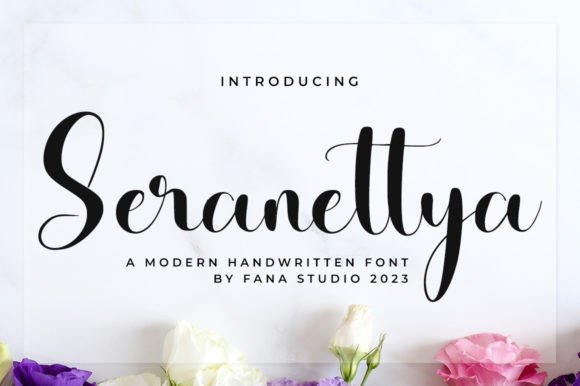
Unleash the Enchanting Seranettya: A Font Symphony for Your Creative Endeavors
Prepare to be captivated by Seranettya Script, an exquisitely crafted font that will leave you spellbound with its elegance, class, and modern allure. This remarkable script font is more than just a font; it's an artistic masterpiece that transforms your words into stunning visual art. With Seranettya Script, your projects will radiate with an aura of sophistication and grace that will leave an unforgettable impression.
Imagine your Ebook Website adorned with the flowing curves and delicate strokes of Seranettya Script. Its enchanting characters dance across the screen, inviting readers into a world of elegance and intrigue. Seranettya Script's timeless beauty will elevate your website to new heights, captivating your audience with its charm and artistry.
Seranettya Script is a font that speaks to the heart, evoking emotions and creating a lasting connection with your readers. Its intricate details and graceful lines add a touch of magic to every project, transforming ordinary words into extraordinary works of art. Whether you're crafting logos, invitations, stationery, or social media posts, Seranettya Script will elevate your designs to new levels of sophistication.
With Seranettya Script, you'll embark on a creative journey where your imagination knows no bounds. Its versatility extends beyond the digital realm, allowing you to incorporate its charm into your physical creations. Product packaging, labels, and watermarks come alive with Seranettya Script's timeless appeal. Let your creativity soar as you explore the endless possibilities that await.
Seranettya Script is the perfect font for those who seek to make a statement, to leave an indelible mark on the world. Embrace the power of this font and let its enchanting beauty transform your projects into masterpieces. Discover the allure of Seranettya Script today and embark on a creative odyssey that will leave you breathless.